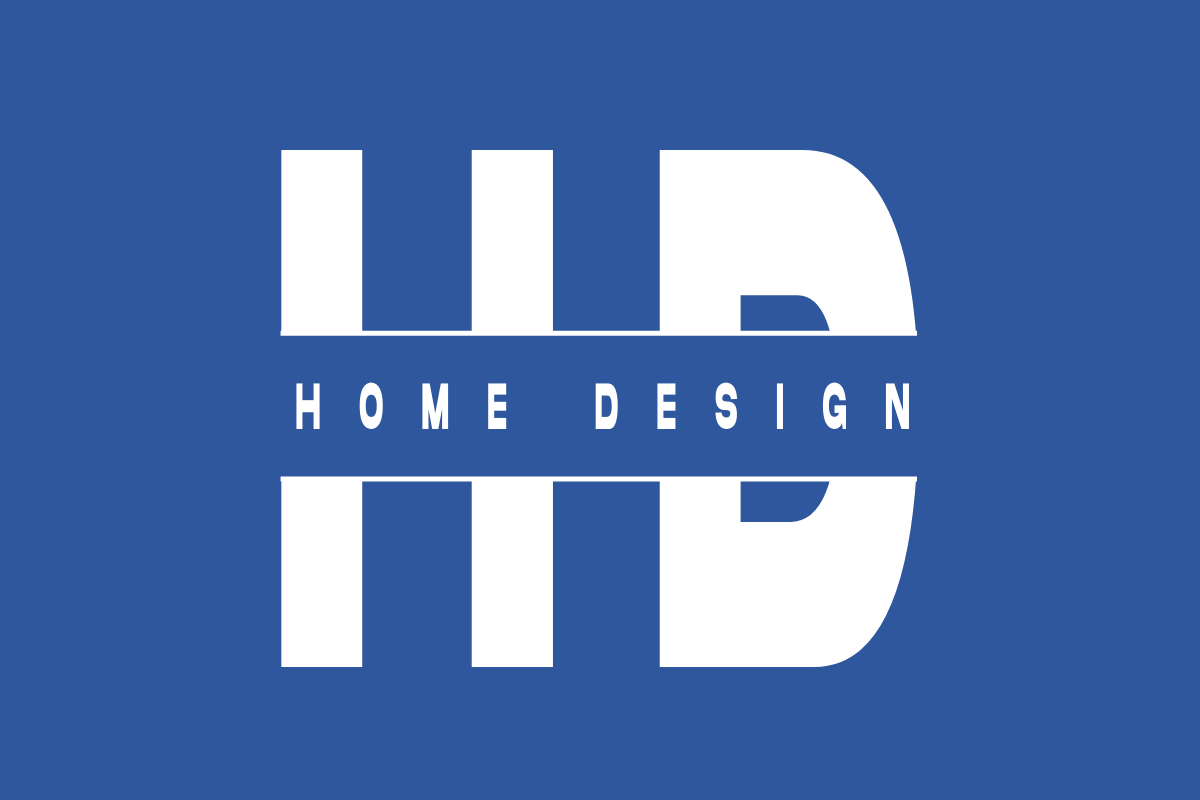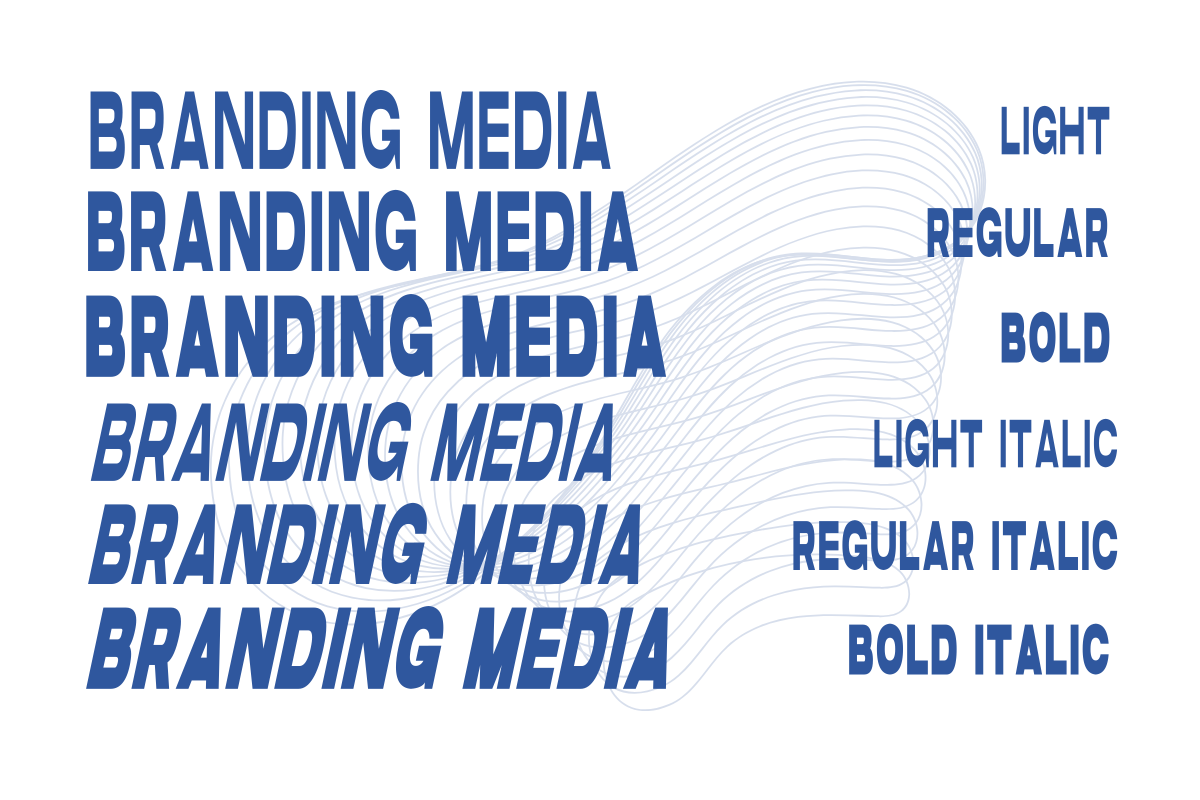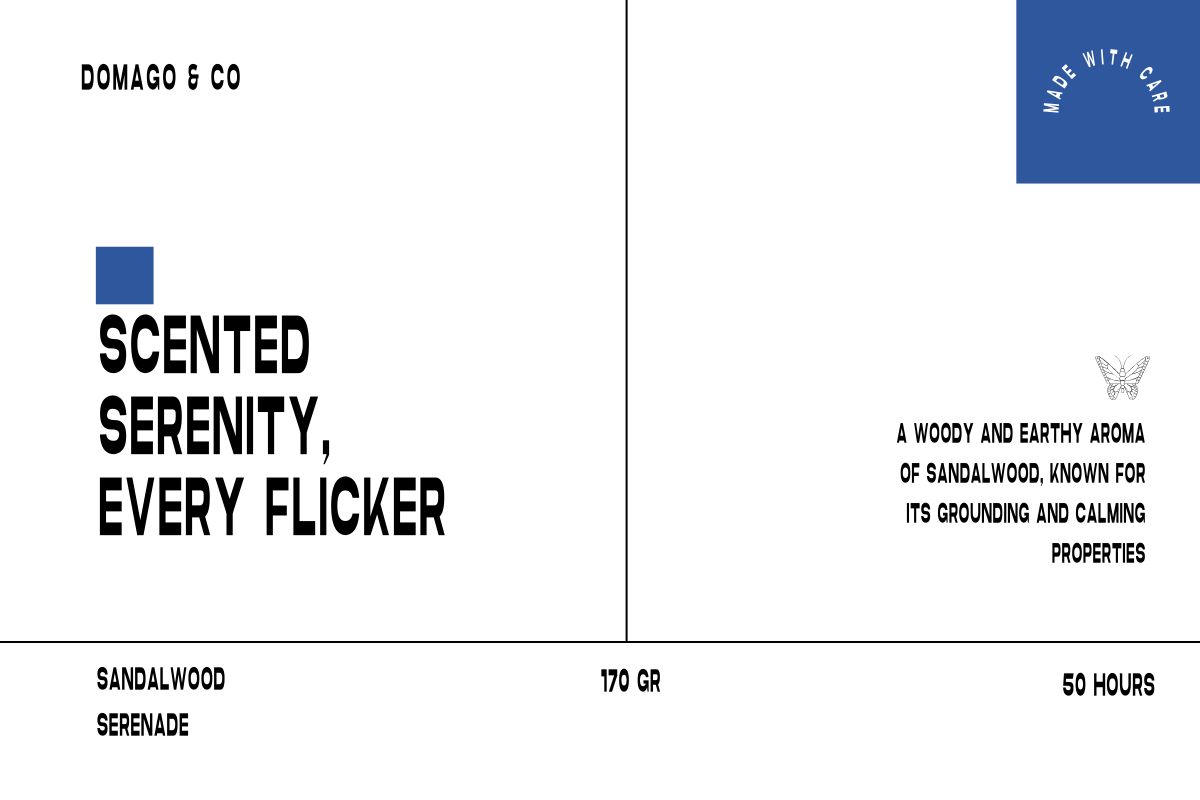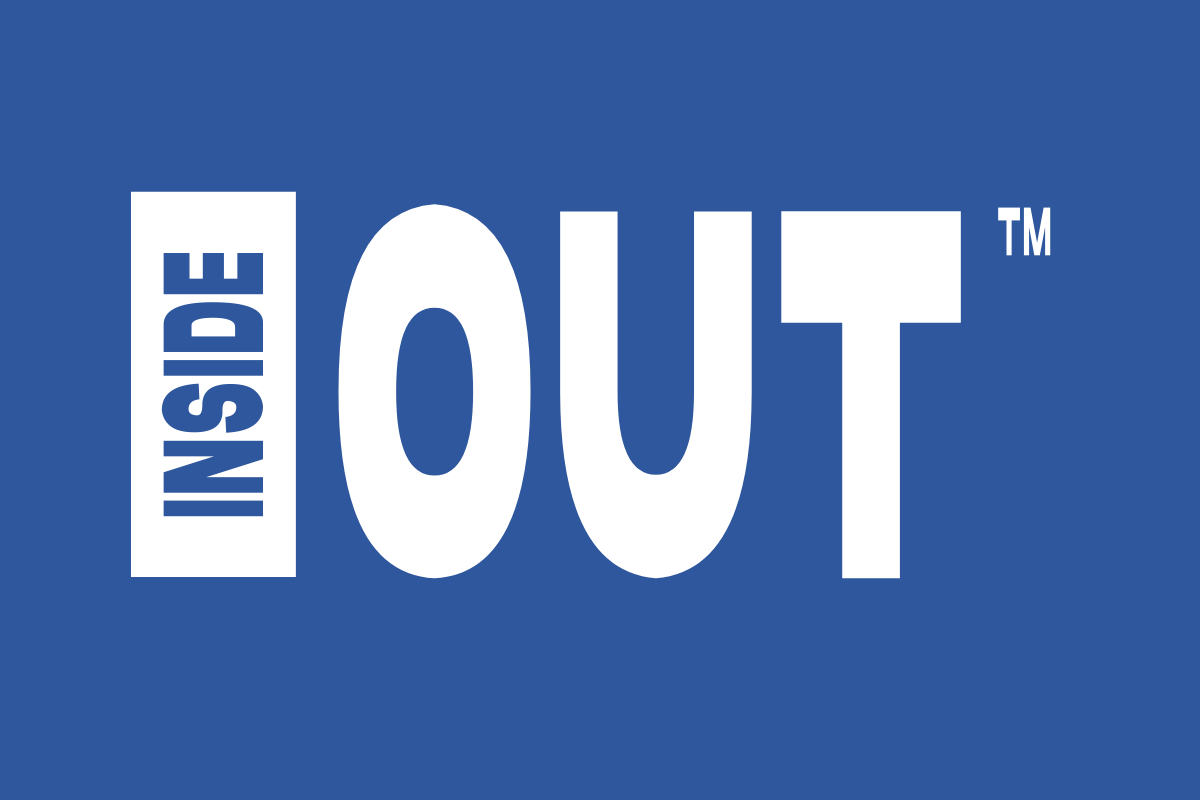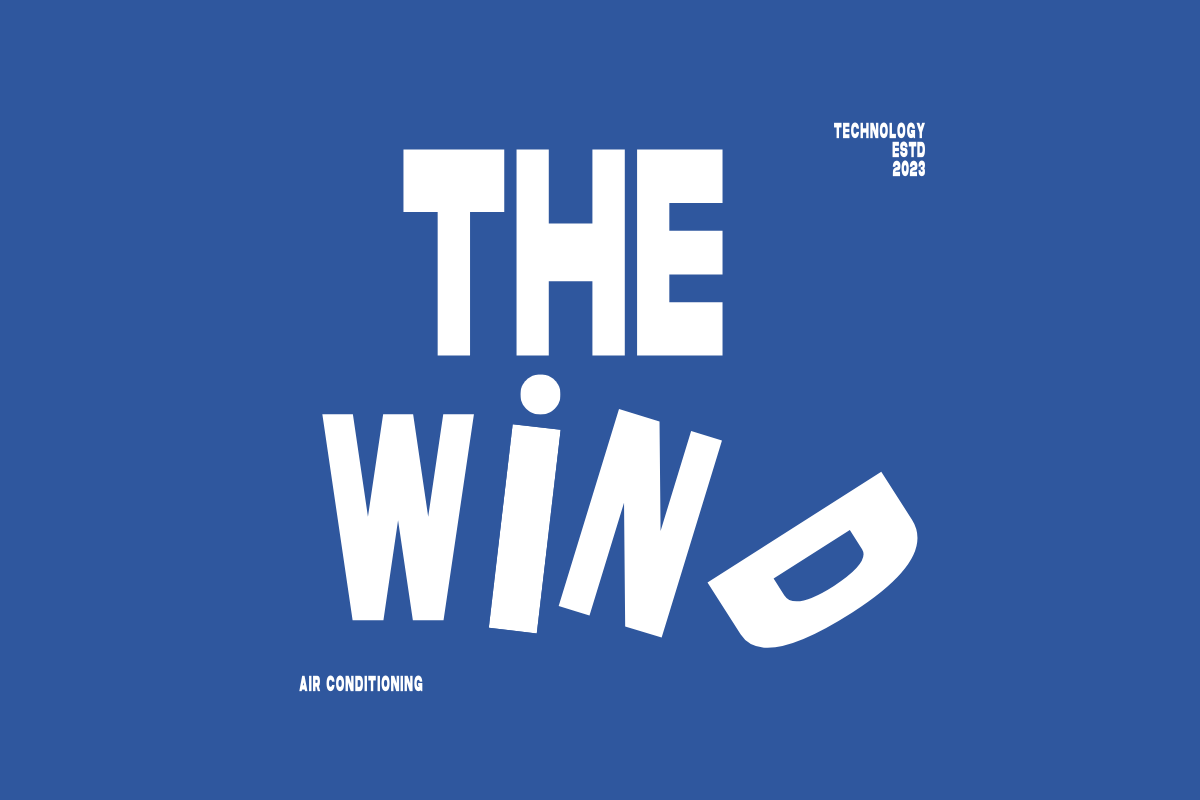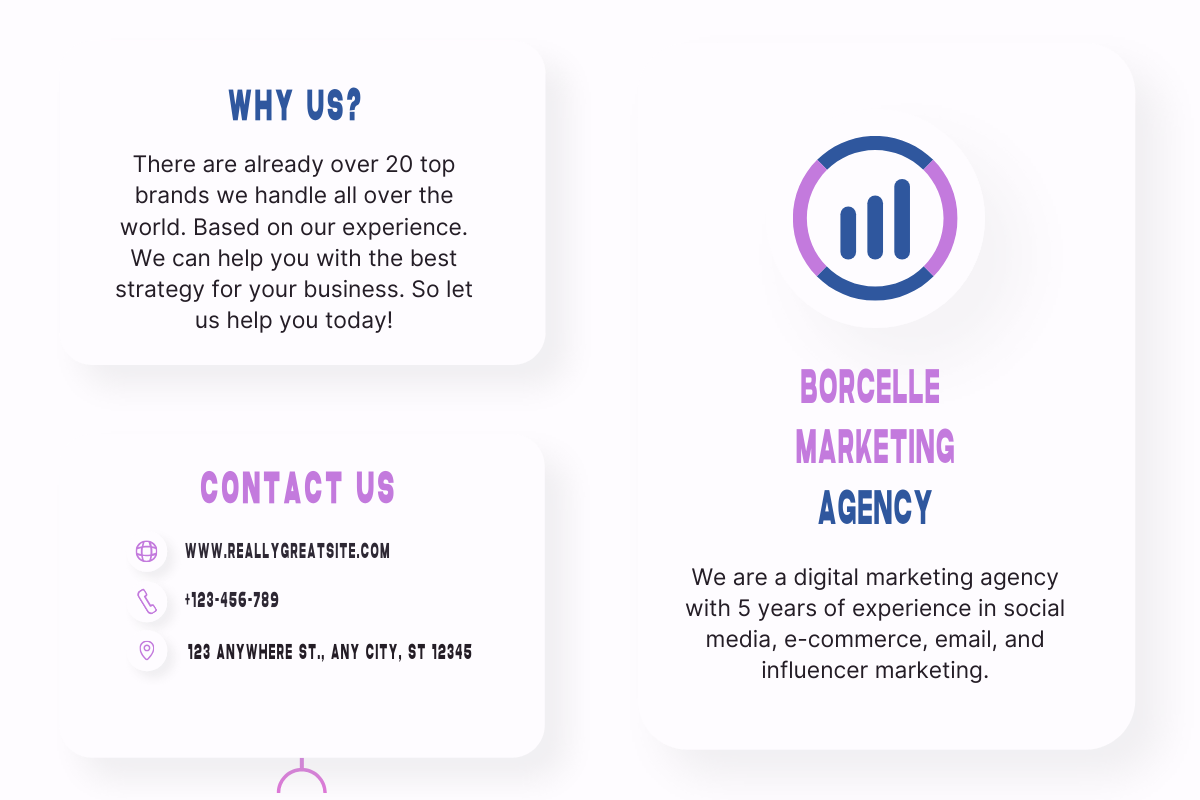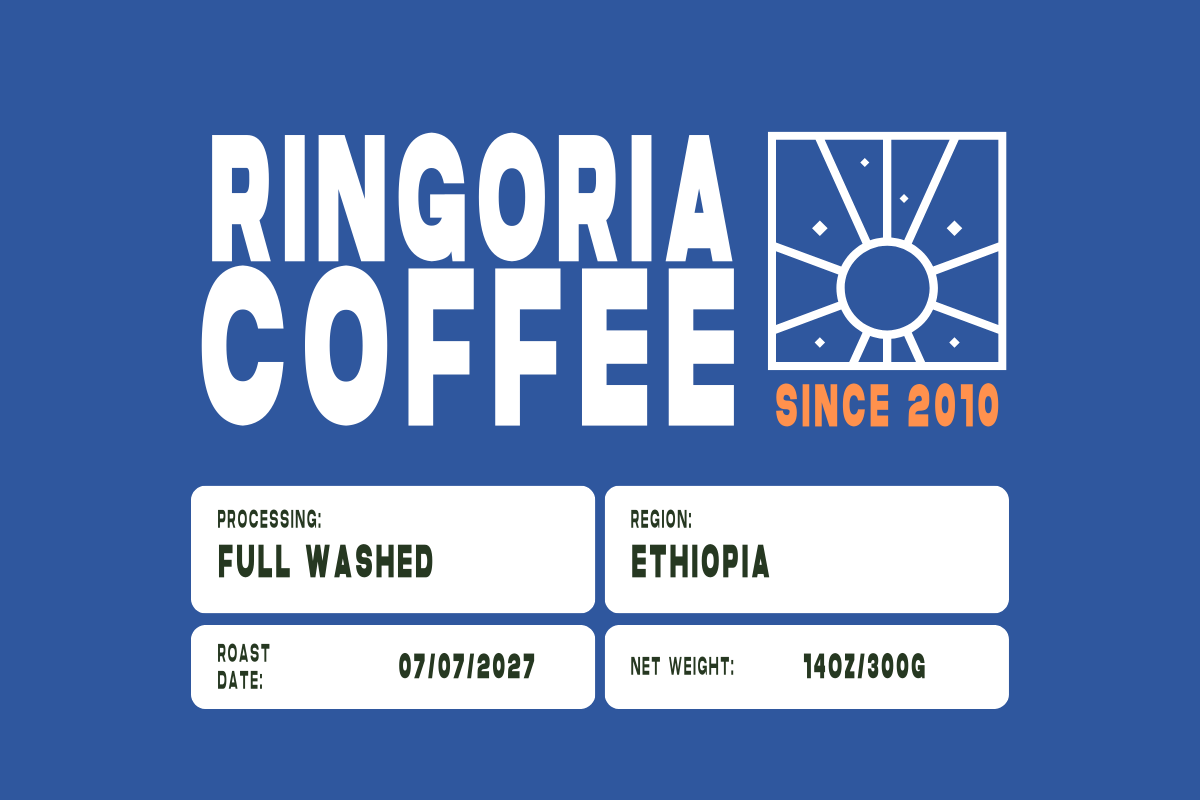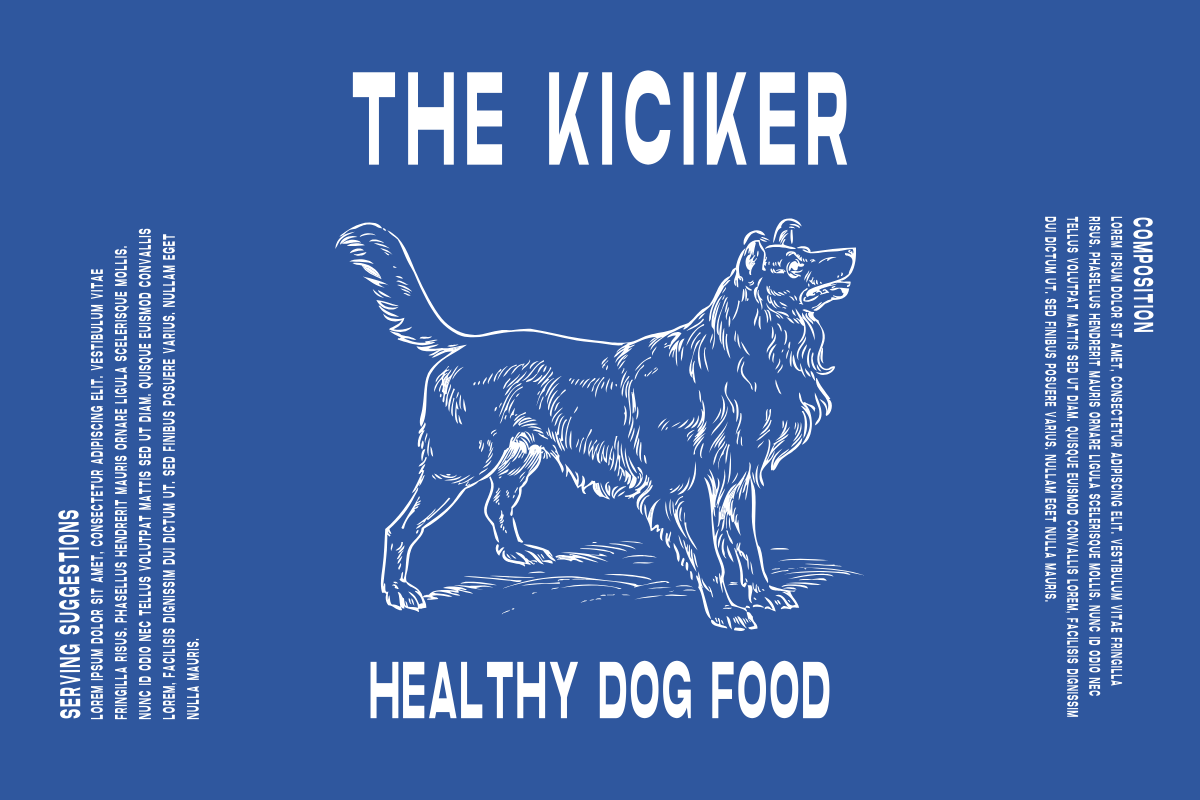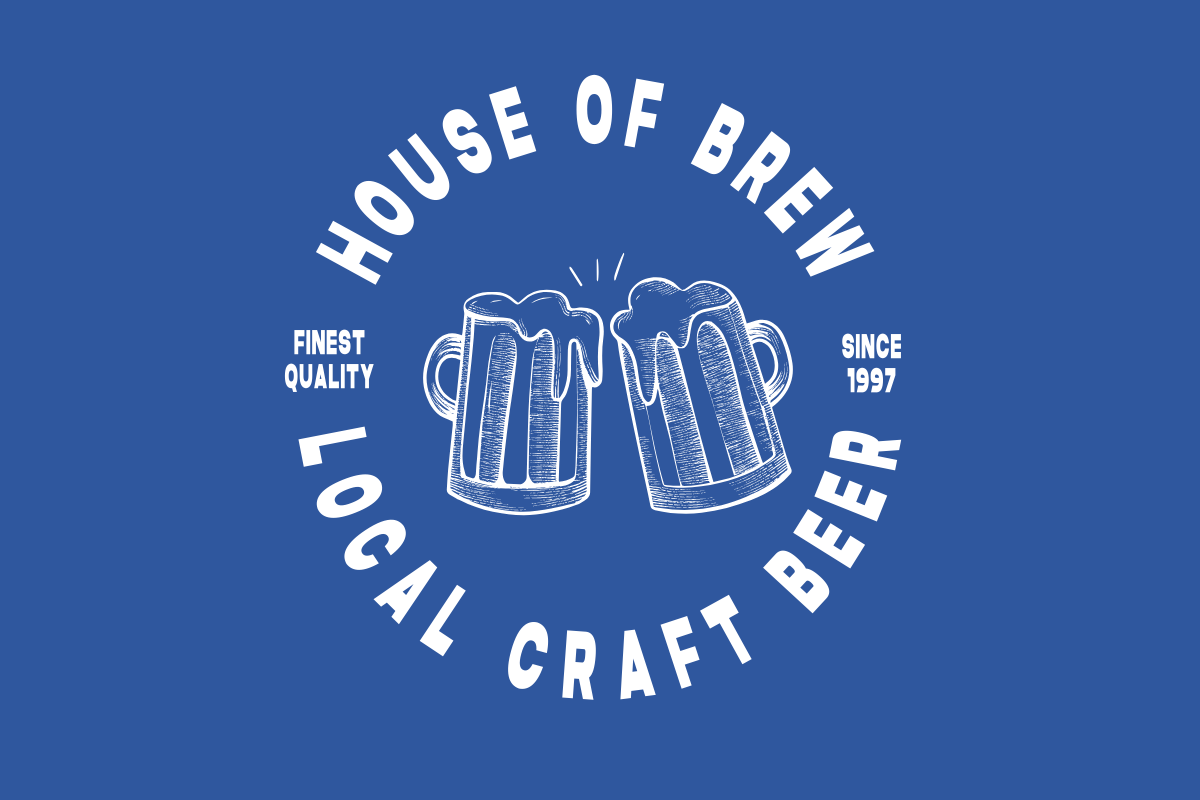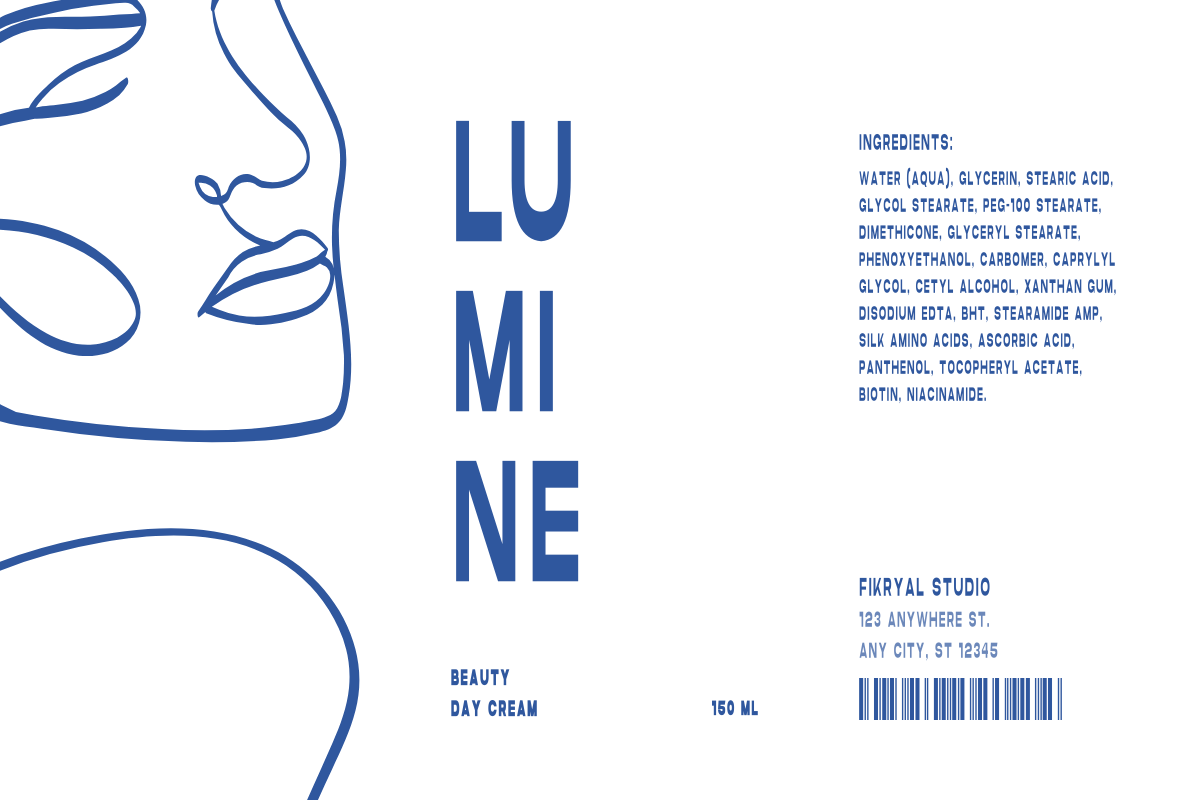
Como Moncer – Casual Condensed Sans
Como Moncer is a casual sans serif font with six types: Light, Light Italic, Regular, Italic, Bold, and Bold Italic. Sleek and minimalist, this font offers flexibility for a variety of design needs. With high readability and a modern style, Como Moncer is ideal for branding, posters, headlines, and product packaging, for both digital and print projects. Add a touch of elegance and professionalism to your designs with Como Moncer’s strong style variations.